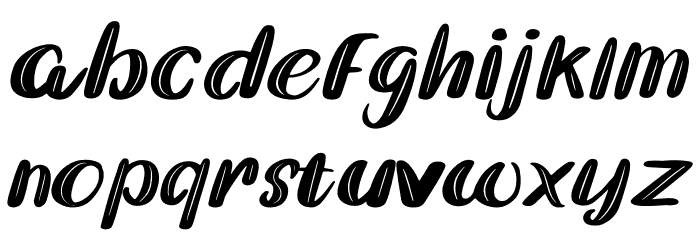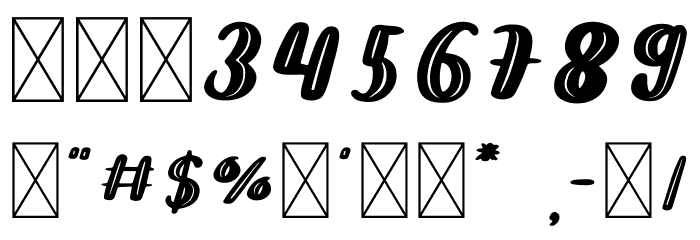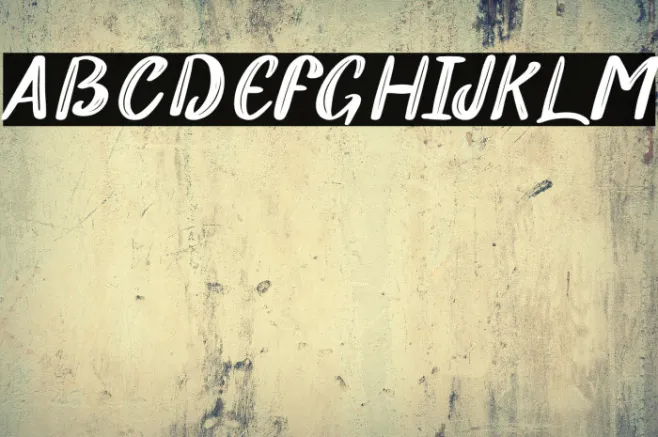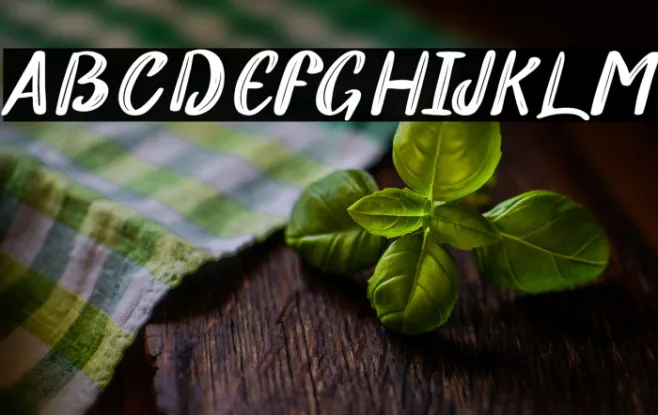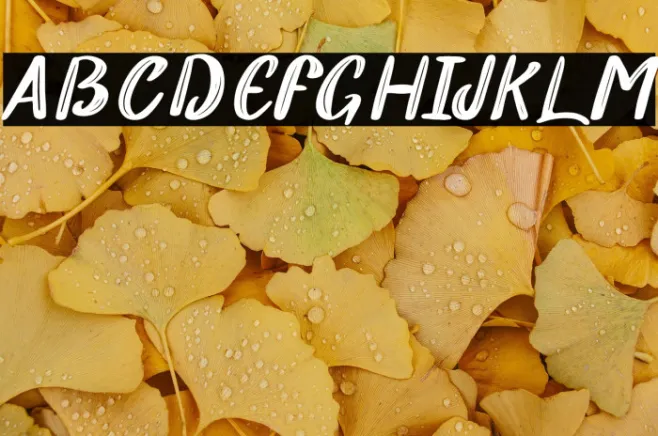
William Slash Font
This font features a bold and dynamic script style with a playful yet sophisticated flair. The letters are slightly slanted, giving a sense of movement and energy. The strokes are thick and consistent, providing a strong visual impact. The uppercase letters are bold and commanding, while the lowercase letters maintain a cohesive flow with smooth curves and rounded edges. The numbers and special characters are designed to match the overall aesthetic, ensuring a uniform appearance across all text elements. This font is ideal for projects that require a touch of elegance combined with a modern twist.
A bold, dynamic script font with a playful and sophisticated style.
- Font: William Slash
- Proposed Projects: Ideal for branding, invitations, greeting cards, and logo design.
- Category: Script
- Use Case: Logos, Headlines, Invitations